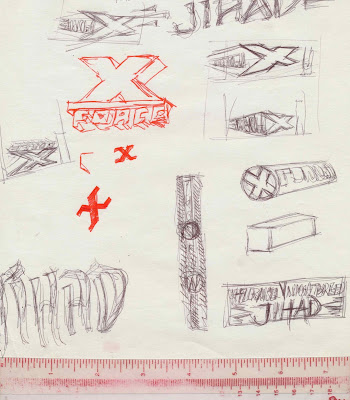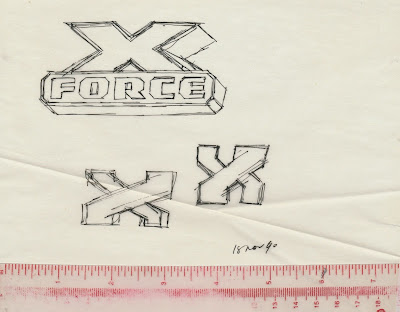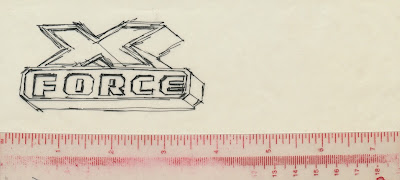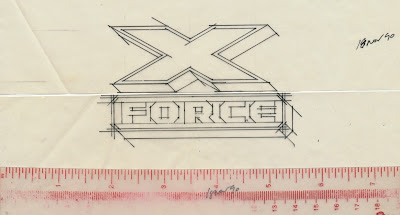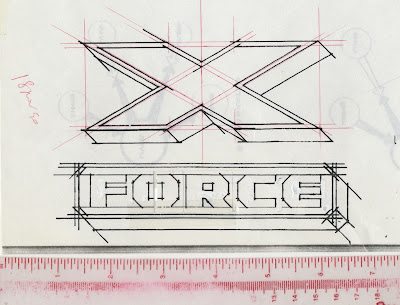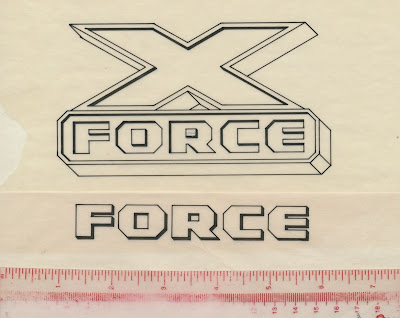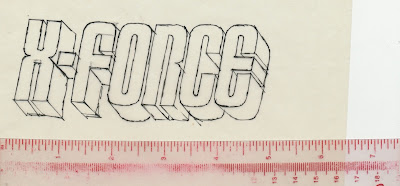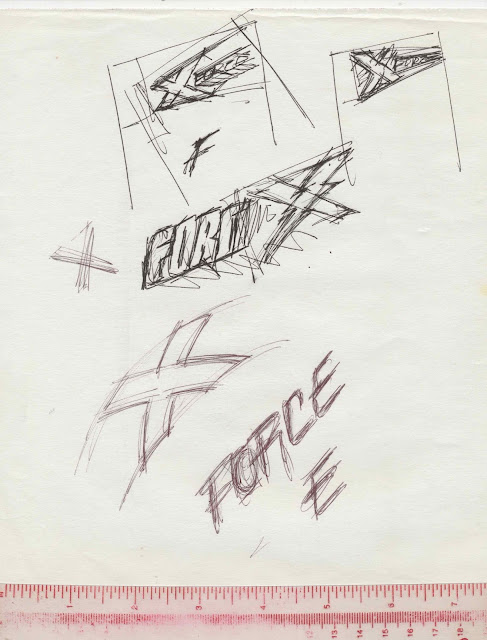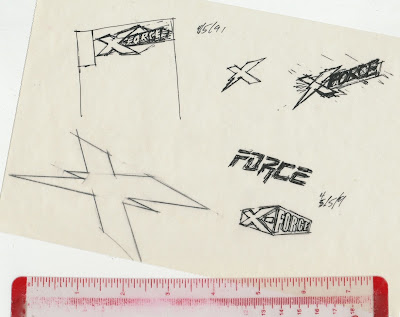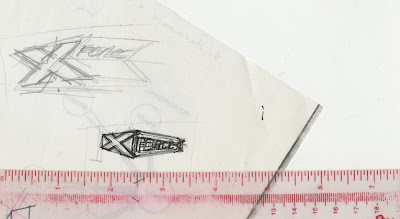
I met with Marvel editor, Bob Harras, at 12:30, October 22, 1990, to discuss the X-Force logo. I don’t remember the details of the meeting. Usually there’s a general description of the title and characters. Sometimes the editor has an idea or suggestion for the logo. I believe Bob told me to do whatever I wanted. As it turned out, this assignment had a long deadline.
Back at my studio after the meeting, I did some thumbnail designs. On the sheet below, you can see a few of my sketches for the Hellraiser/Nightbreed Jihad title.
On November 18, 1990, I developed and refined two logo designs.
My appointment book said Bob called me on November 26. I don’t recall details of the conversation but the logo was put on hold. About four-and-a-half month’s later, Bob called on April 5, 1991 and gave me the green light to do more logo designs. Below are my thumbnail sketches.
Two days later I produced tight renderings of the designs.
On Sunday, April 14, I started work on the final art.
On Monday, the next day, I faxed the design with alternate versions of the counters for the O and R. Bob approved the logo with the alternates. On the revision I adjusted the letterspacing again.
On June 25, I made a tight rendering of the logo. A few minor changes were indicated in red. Then I proceeded to make the final art, which was delivered the next day.
| October 2004; Logo variation with a different X design |
| September 2014; Deadpool logo by Todd Klein |